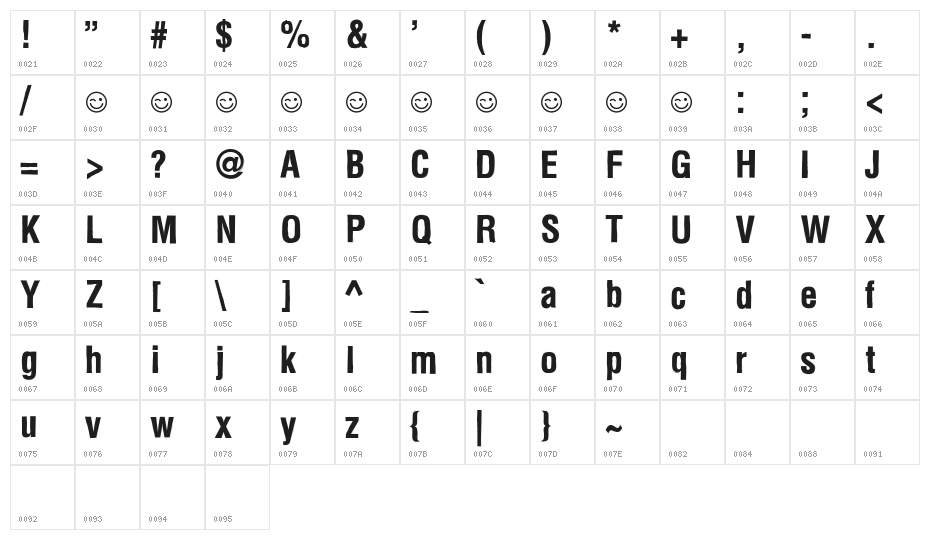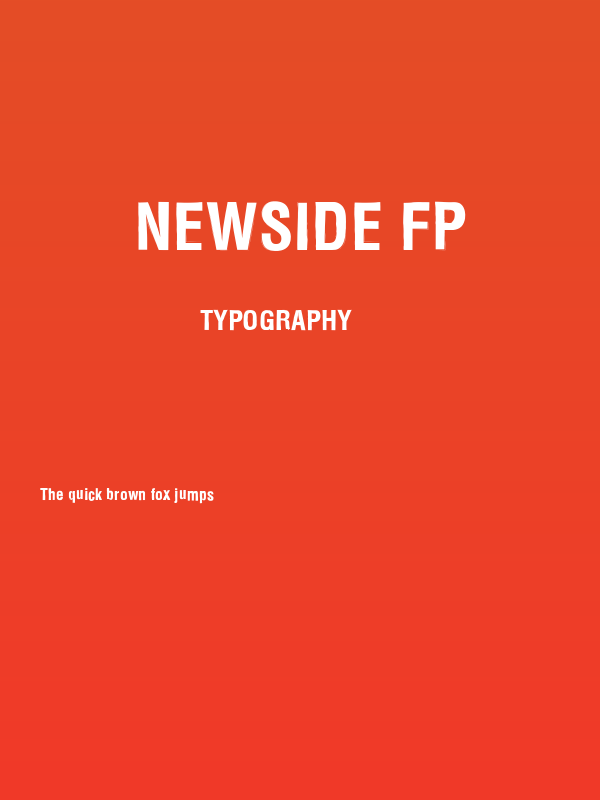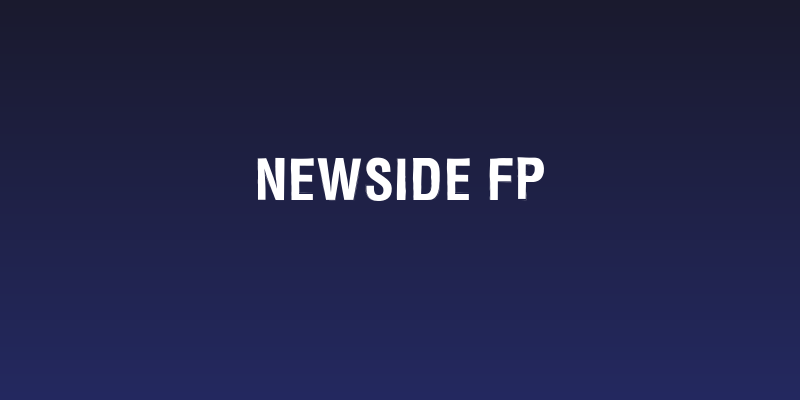
Newside FP Font
Newside FP Description
This font features a bold and impactful style with a strong presence. The characters are uniformly thick, giving it a robust and solid appearance. The uppercase and lowercase letters maintain a consistent weight, which enhances readability and makes it suitable for attention-grabbing headlines. The font's design includes slightly rounded edges, adding a touch of softness to its otherwise strong and assertive look. The spacing between characters is tight, which contributes to its compact and cohesive feel. This font is versatile and can be used in various design projects that require a bold statement.
| Proposed Projects | Ideal for posters, headlines, branding, and advertising materials. |